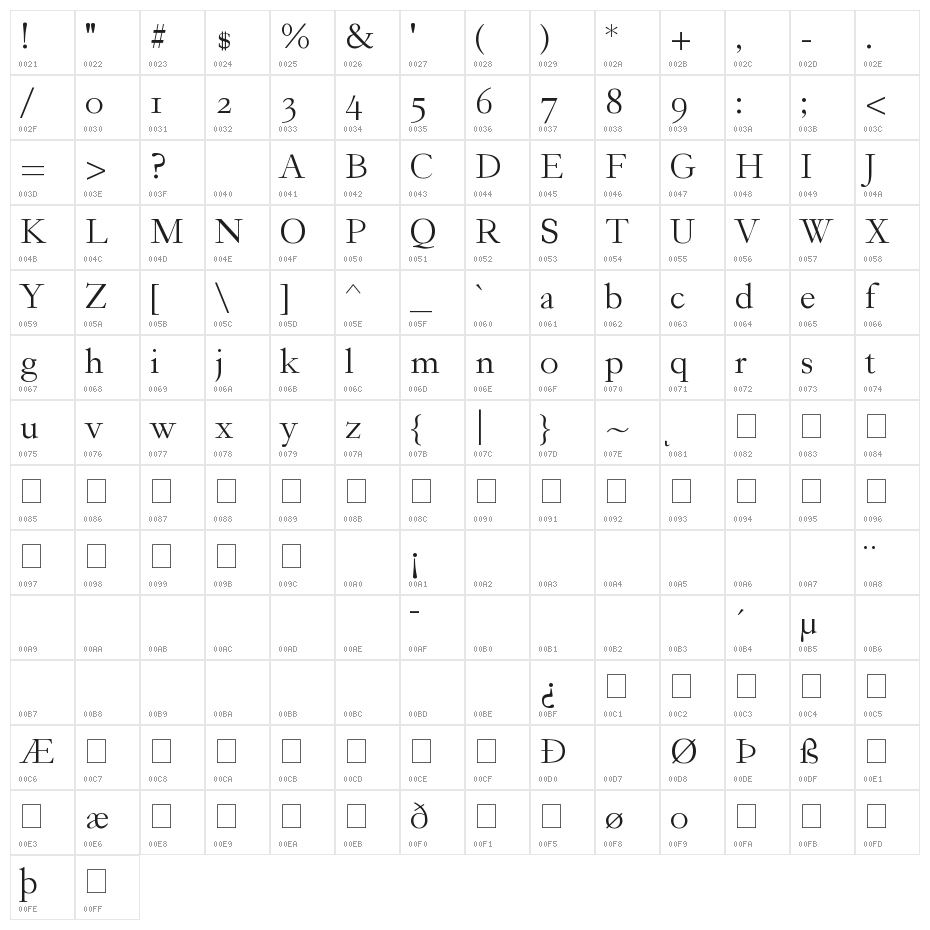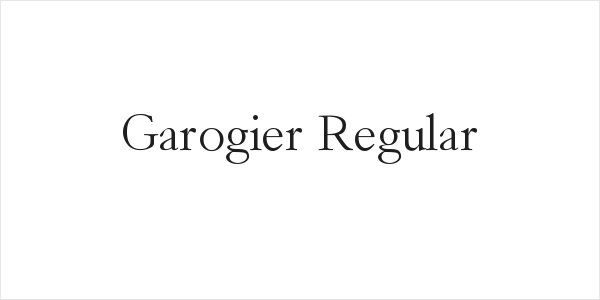
Garogier Regular Font
Garogier Regular Description
This font exhibits a classic serif style with elegant, thin strokes and moderate contrast. The serifs are slightly bracketed, giving it a refined and traditional appearance. The uppercase letters are tall and stately, while the lowercase letters maintain a balanced and harmonious look. The numerals are proportional and align well with the overall aesthetic, providing a cohesive look across different text elements. The special characters are distinct and maintain the font's sophisticated style, making it suitable for formal and professional use.
| Proposed Projects | Ideal for editorial design, book covers, formal invitations, and branding materials that require a touch of elegance and tradition. |